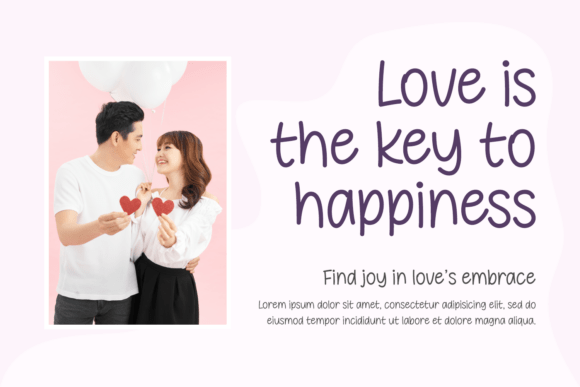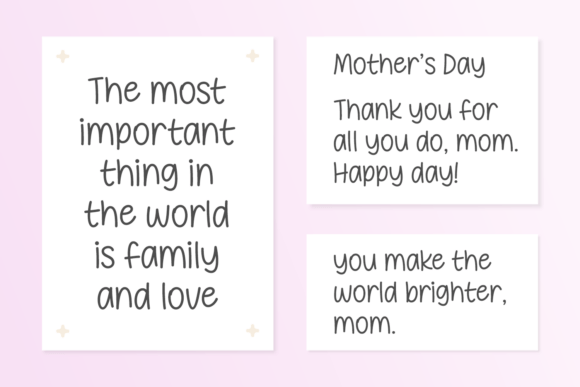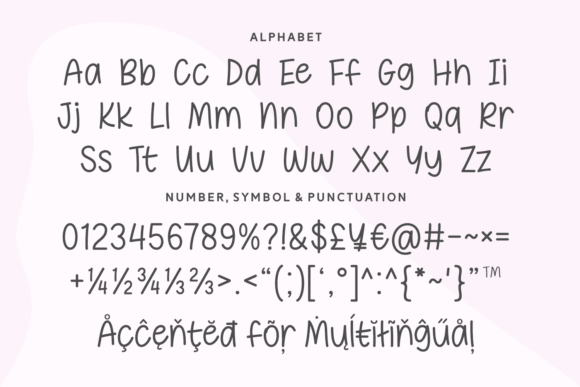
Capture Life’s Sweetest Moments with Couple Memory Font
Are you a designer or crafter looking for a unique and heartfelt way to express yourself? Look no further than Couple Memory, a charming handwritten font that’s perfect for capturing life’s sweetest moments. With its friendly and unassuming silhouette, Couple Memory brings an authentic sense of warmth and human connection to every word.
The Perfect Font for Romantic Designs
Couple Memory is a cute handwritten font that’s specifically designed to add a personal touch to your designs. Its whimsical and romantic feel makes it the perfect choice for a variety of projects, including romantic greeting cards, wedding photo albums, and personalized gift tags. Whether you’re designing for a boutique lifestyle brand or crafting a sentimental memory book, Couple Memory is the perfect font to convey your message.
What Makes Couple Memory Special?
So, what sets Couple Memory apart from other fonts? Here are just a few things that make it special:
- Handwritten with love: Couple Memory is a handwritten font that’s been carefully crafted to bring a sense of warmth and personality to your designs.
- Unique and quirky: With its friendly and unassuming silhouette, Couple Memory adds a touch of whimsy and charm to any design.
- Perfect for romantic designs: Whether you’re designing for a wedding, anniversary, or just because, Couple Memory is the perfect font to express your feelings.
- Versatile: Couple Memory is a versatile font that can be used for a variety of projects, from social media quotes to personalized gift tags.
How to Use Couple Memory in Your Designs
Couple Memory is easy to use and can be incorporated into a variety of design projects. Here are a few ideas to get you started:
- Romantic greeting cards: Use Couple Memory to create beautiful and heartfelt greeting cards for special occasions.
- Wedding photo albums: Add a personal touch to your wedding photo albums with Couple Memory.
- Social media quotes: Use Couple Memory to create whimsical and romantic social media quotes that will capture your audience’s attention.
- Personalized gift tags: Add a special touch to your gifts with personalized gift tags featuring Couple Memory.
Why Designers and Crafters Love Couple Memory
Couple Memory has quickly become a favorite among designers and crafters, and for good reason. Here are just a few reasons why:
- Easy to read: Couple Memory is clear and easy to read, making it perfect for designs where you want to convey a message.
- Highly versatile: Couple Memory can be used for a wide range of projects, from digital designs to print materials.
- Unique and eye-catching: Couple Memory adds a touch of personality and whimsy to any design, making it stand out from the crowd.
Tips for Getting the Most Out of Couple Memory
Here are a few tips for getting the most out of Couple Memory:
- Experiment with different colors: Couple Memory looks great in a variety of colors, so don’t be afraid to experiment and find the perfect hue for your design.
- Pair with other fonts: Couple Memory pairs well with other fonts, so try combining it with a bold font for added contrast.
- Use it for emphasis: Couple Memory is perfect for adding emphasis to certain words or phrases in your design.
Couple Memory is a charming handwritten font that’s perfect for capturing life’s sweetest moments. With its friendly and unassuming silhouette, Couple Memory brings an authentic sense of warmth and human connection to every word. Whether you’re a designer or crafter, Couple Memory is the perfect font to add a personal touch to your designs. So why wait? Download Couple Memory today and start creating beautiful and heartfelt designs that will capture your audience’s attention.